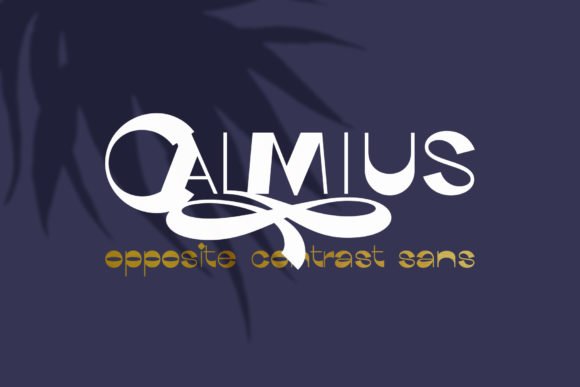
The Perfect Font for Your Creative Masterpiece Have you ever stared at a blank canvas, trying to decide on the perfect font to bring your design to life? The blank page can be intimidating, but with the right font, the possibilities are endless. That’s where the Calmius Font comes in – a modern and stylish…